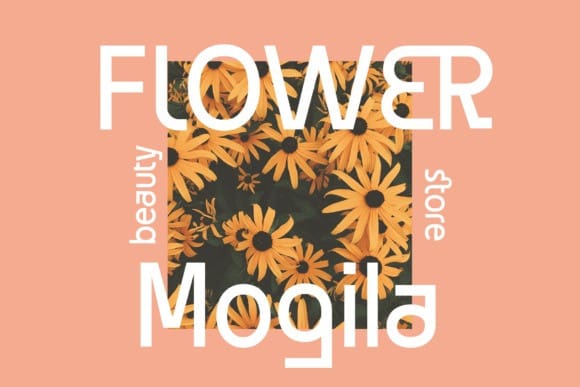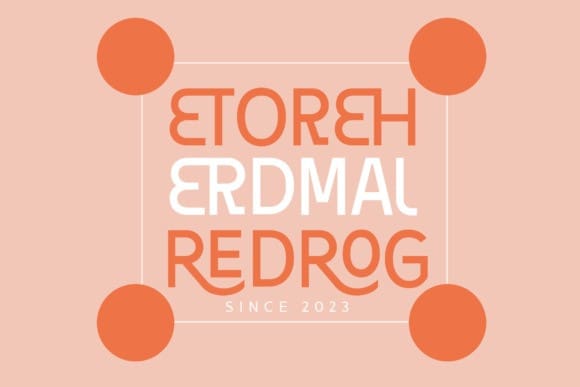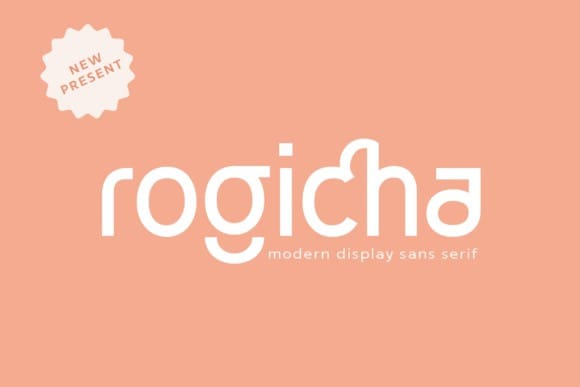
Rogicha Font
Rogicha Font is a modern stackable display font. The way you can uniquely stack different parts of this font makes it super fun to work! Perfect for all purposes. You make more creative designs with the Opentype feature. Enjoy this font.